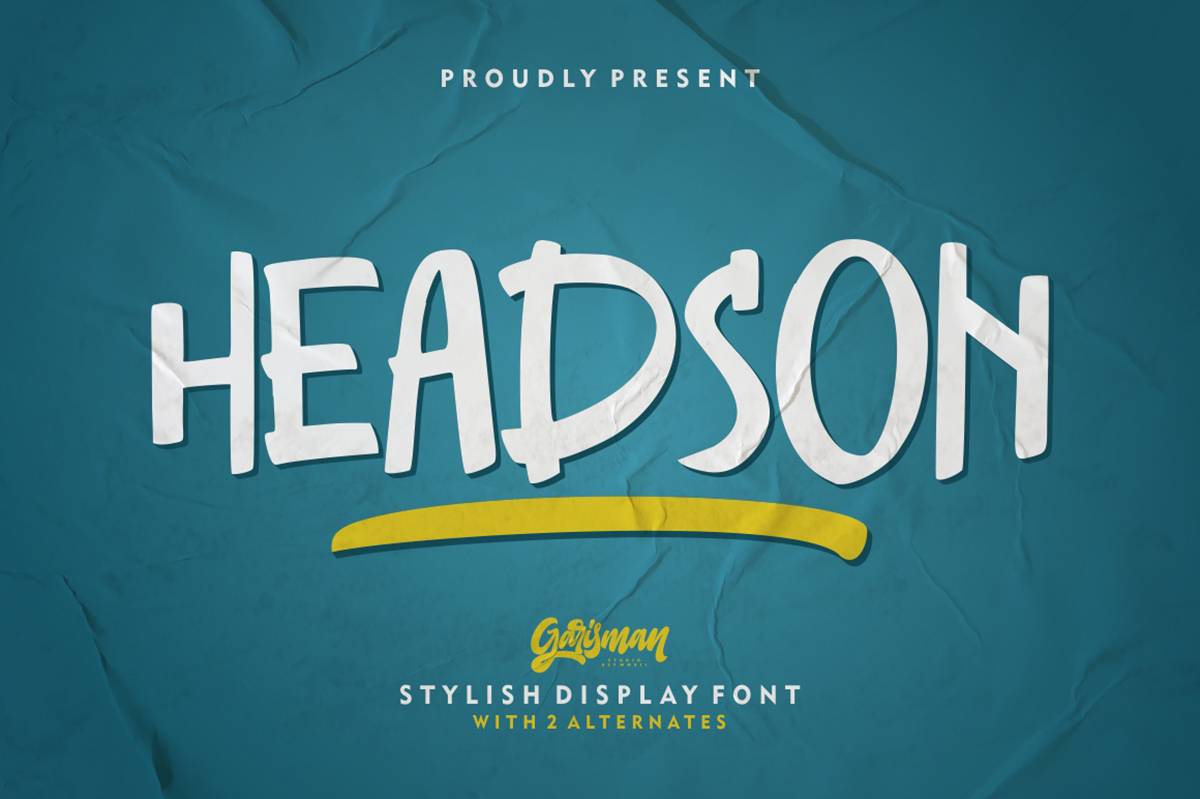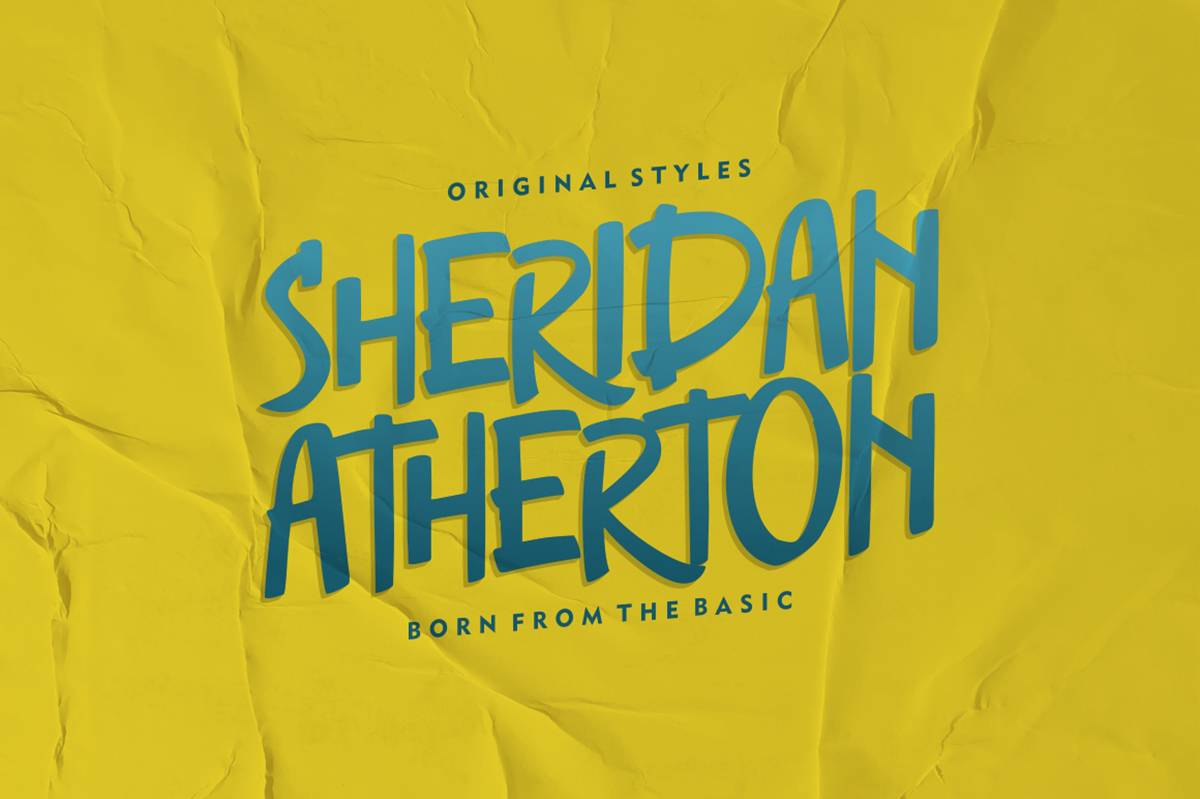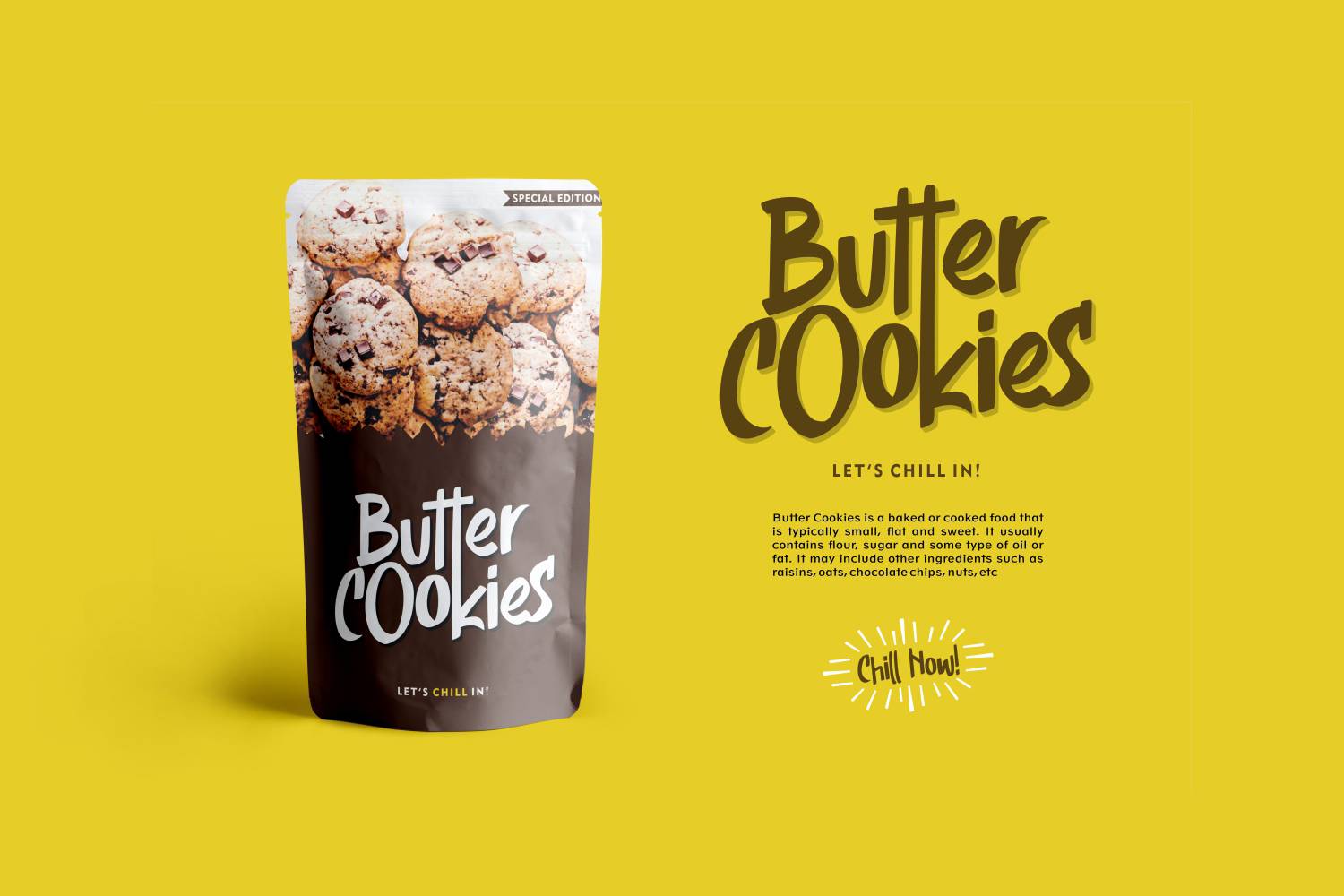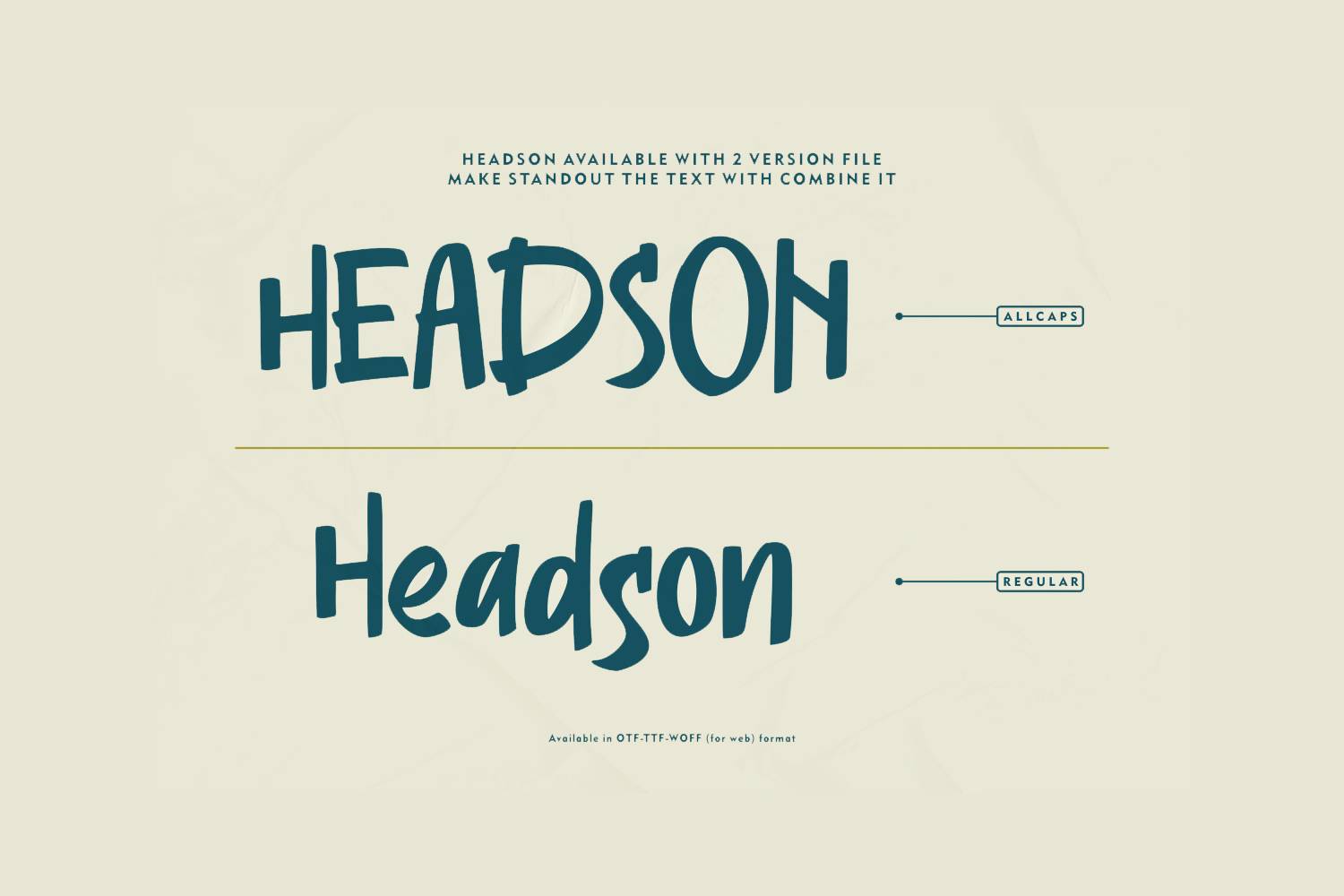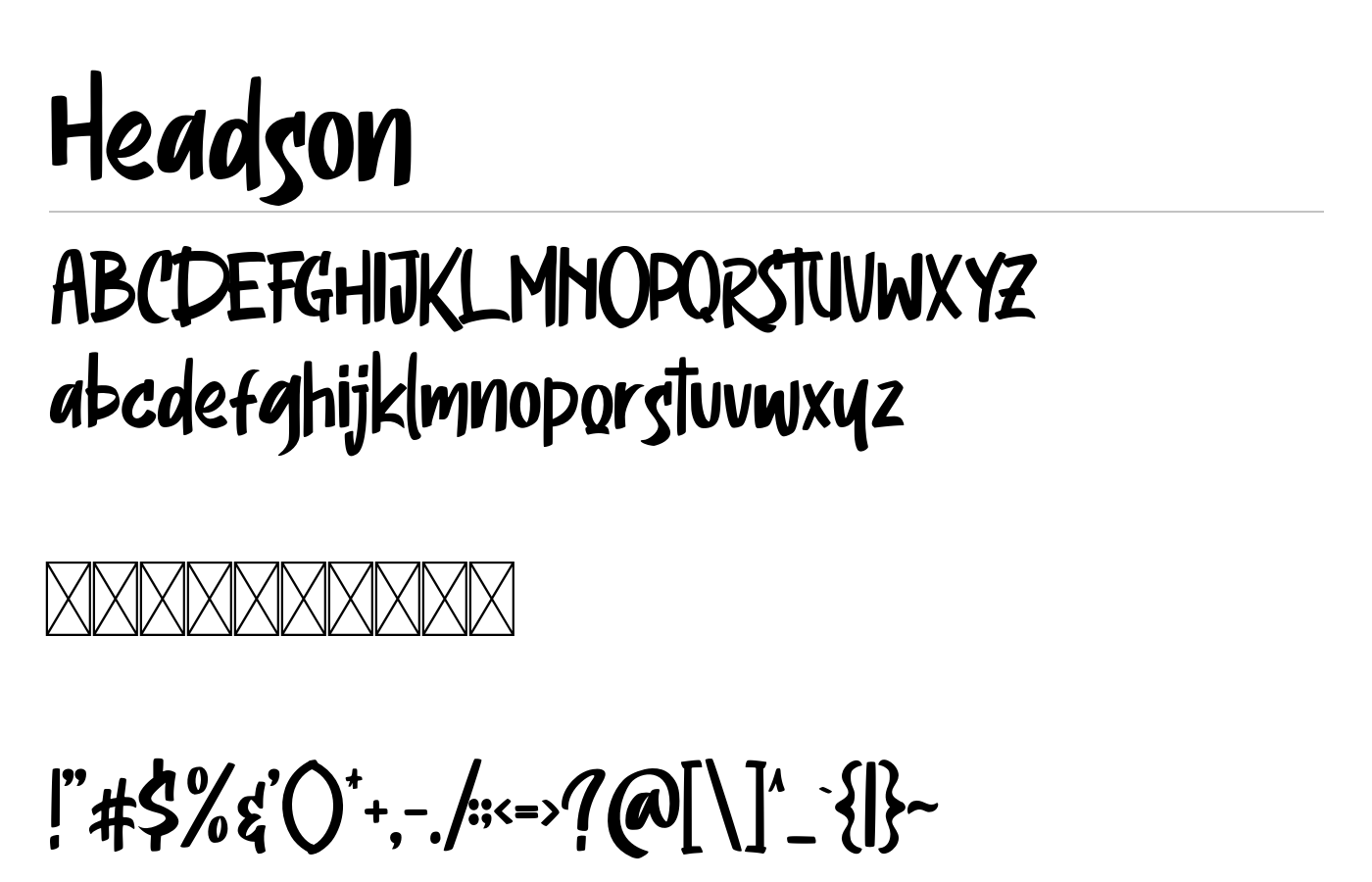
Headson is a playful handwritten sans serif font with a casual and friendly vibe. Its uneven, slightly condensed letterforms and lively strokes make it ideal for adding personality to creative projects, informal branding, and eye-catching headlines. This font works best where a fun, approachable style is desired, such as in posters, packaging, or children’s media.
Headson Font
About Headson Font
| Font family | Headson Font |